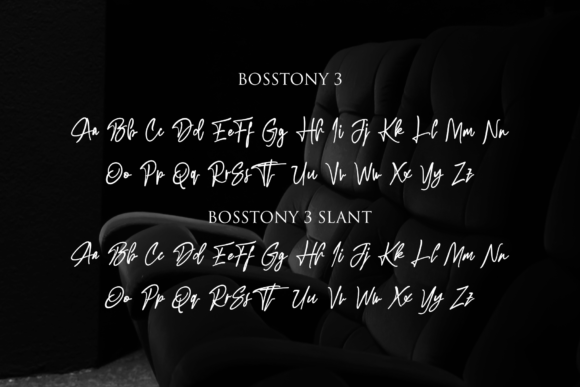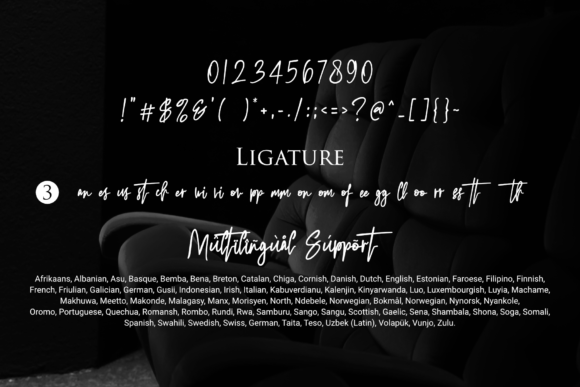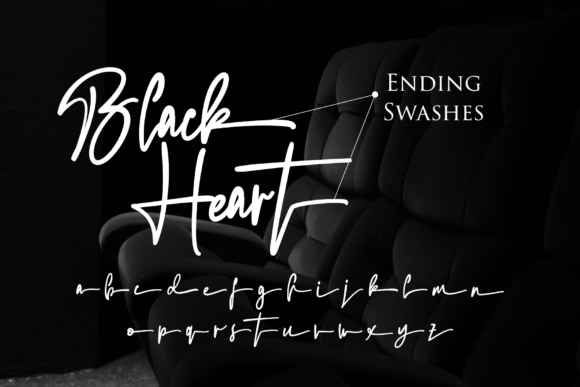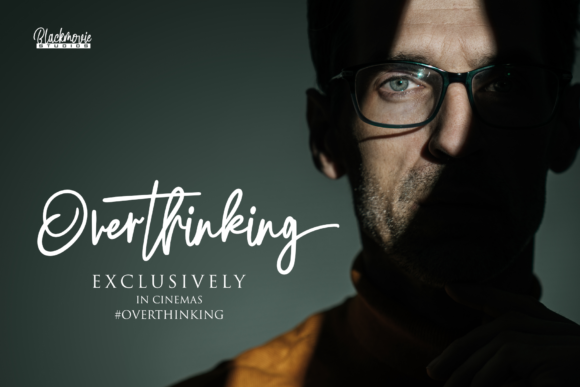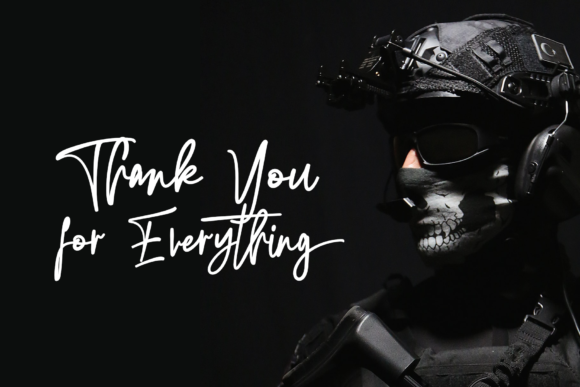
Introduction to Bosstony 3 Font
Have you ever stared at a blank page, struggling to find the perfect font to bring your creative project to life? The frustration is real, but what if I told you there’s a solution that can elevate your designs and leave a lasting impression? Enter the Bosstony 3 Font, a stunning natural script font that’s about to become your new best friend.
With its classy vibe, unique variations, ligatures, and alternate styles, the Bosstony 3 Font is the ultimate design resource for anyone looking to add a touch of sophistication to their work. Whether you’re creating movie titles, book covers, or any other visual masterpiece, this high-quality font is sure to impress. And the best part? It’s available for free download, making it an accessible and valuable asset for designers of all levels.
What sets the Bosstony 3 Font apart is its PUA encoding, which allows you to access all the amazing glyphs and ligatures with ease. This means you can customize your design to perfection, even if you’re working with a transparent background. So why wait? Get ready to take your creative projects to the next level with the Bosstony 3 Font.
Key Features of Bosstony 3 Font
- Unique, modern design style with a mix of bold and elegant elements, perfect for making a statement in creative projects.
Honest Review: Bosstony 3 Font
As a designer, I’m always on the lookout for high-quality design resources to elevate my creative projects. I recently stumbled upon the Bosstony 3 Font, and I must say, it’s been a game-changer.
- ✨ High-quality glyphs: The Bosstony 3 Font boasts beautiful, crisp glyphs that are perfect for any design project.
- ✨ Transparent background: This font allows for seamless integration with any background, making it a versatile design resource.
However, I do have a few minor complaints:
- ⚠️ Limited character set: The Bosstony 3 Font doesn’t have a complete character set, which can be a bit limiting for some projects.
- ⚠️ No bold or italic styles: While the regular style is beautiful, I wish there were more variations available.
Overall, I’m thoroughly impressed with the Bosstony 3 Font. Its high-quality glyphs and transparent background make it a valuable design resource, and the free download is a major bonus. While it’s not perfect, it’s definitely worth adding to your design arsenal.
The Bosstony 3 Font is ideal for use in creative projects that require a high-quality, transparent background font. It’s perfect for designing logos, business cards, and other marketing materials where a clean and modern font is essential.
Is the Bosstony 3 Font suitable for print or digital use?
The Bosstony 3 Font is designed for both print and digital use. Its high-quality design and transparent background make it perfect for various design applications, including logos, business cards, brochures, and digital graphics. Whether you’re working on a print project or a digital design, the Bosstony 3 Font is an excellent choice.